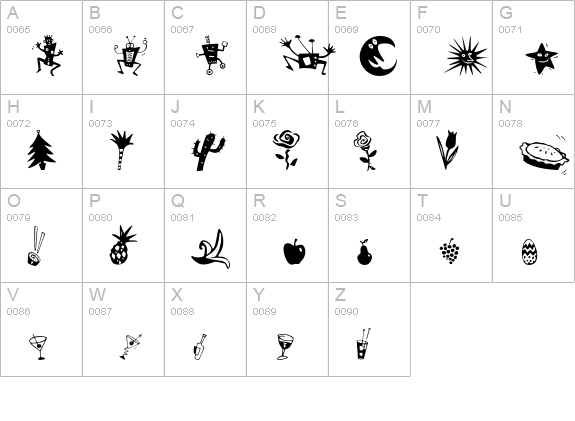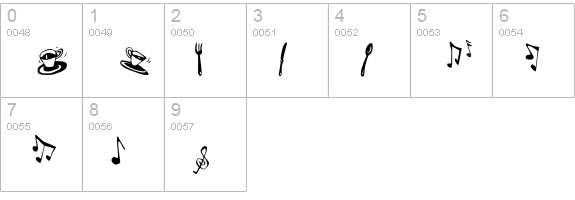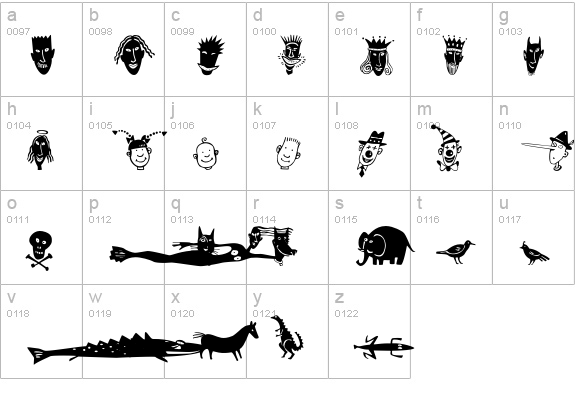
KlunderScript-Kreatures Font Details
Introducing KlunderScript-Kreatures, a unique and enchanting font that brings a touch of whimsy and creativity to your designs. With its playful and hand-drawn style, KlunderScript-Kreatures transports your imagination to a world where letters dance and words come alive. This font is not only visually captivating, but also incredibly versatile. Whether you're designing a logo, creating eye-catching headlines, or adding a personal touch to your digital artwork, KlunderScript-Kreatures is the perfect choice to make a lasting impression. What sets KlunderScript-Kreatures apart is not just its charming aesthetics, but also its accessibility. We believe that creativity should be free, which is why KlunderScript-Kreatures is freely available to download at FontsMarket.com. This means that you can effortlessly bring a touch of magic to your projects without breaking the bank. So go ahead, download KlunderScript-Kreatures today and unleash your imagination. Let this font be your trusty companion as you embark on a creative journey filled with endless possibilities. With KlunderScript-Kreatures, your words will come alive in a world where anything is possible.